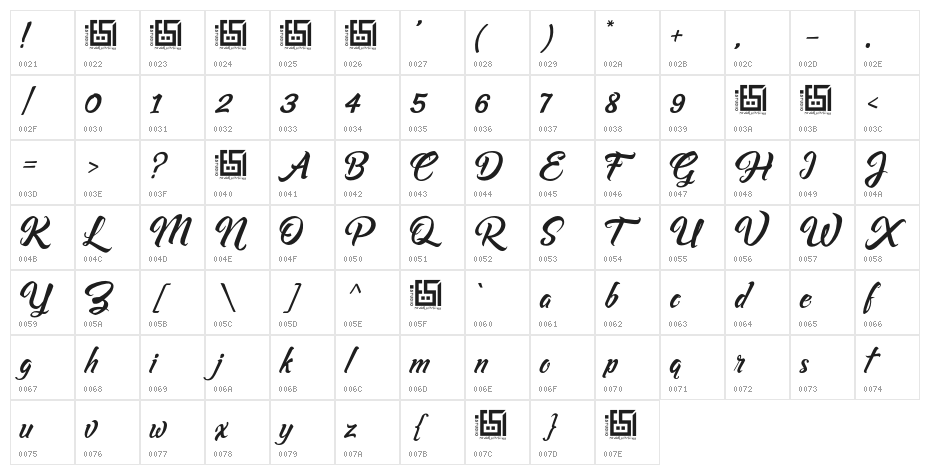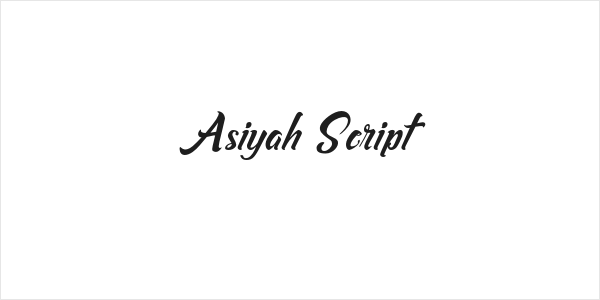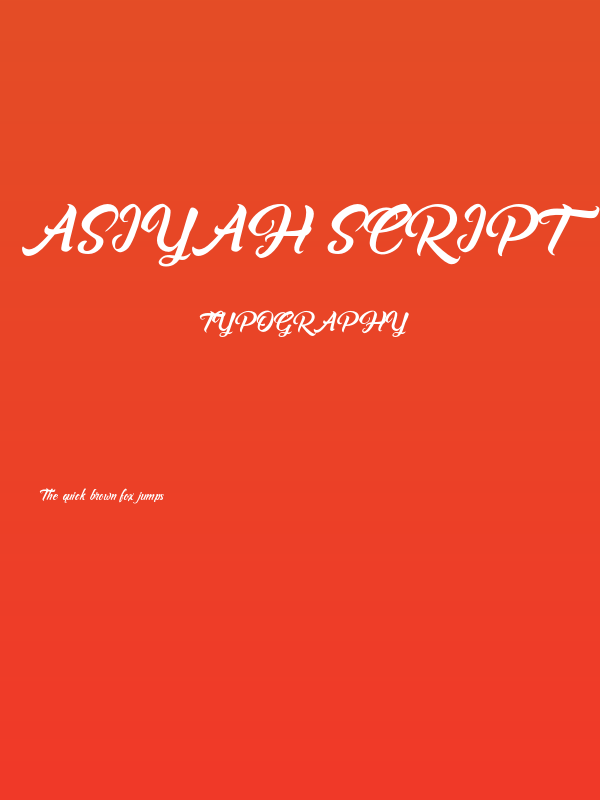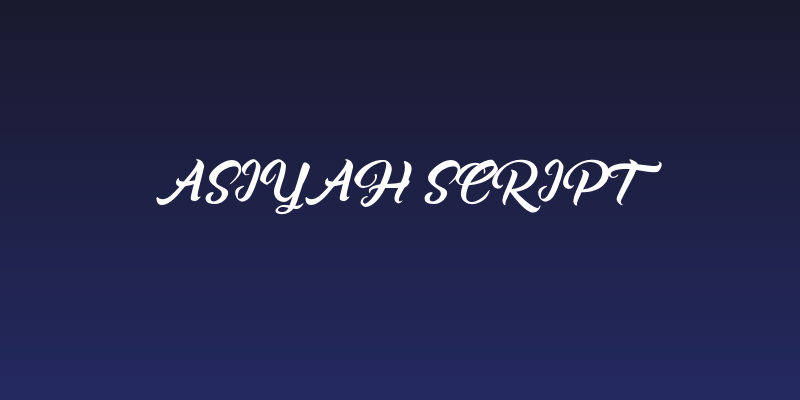
Asiyah Script Font
Asiyah Script Description
This elegant script font features flowing, cursive letterforms that exude a sense of sophistication and grace. The uppercase letters are bold and sweeping, with intricate loops and flourishes that add a decorative touch. The lowercase letters maintain a consistent style, with smooth, connected strokes that create a seamless flow. The numerals are clear and stylish, complementing the overall aesthetic. Special characters are thoughtfully designed to match the script's ornate style. This font is perfect for projects that require a touch of elegance and refinement.
| Overall Style | Elegant, Decorative |